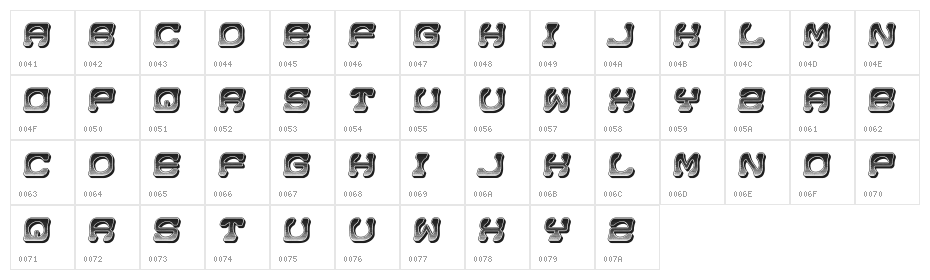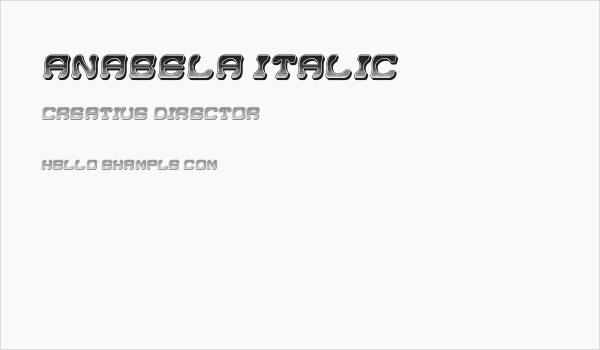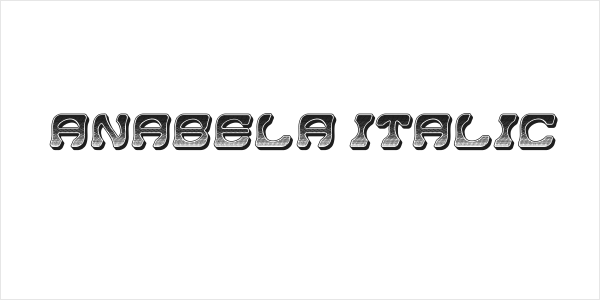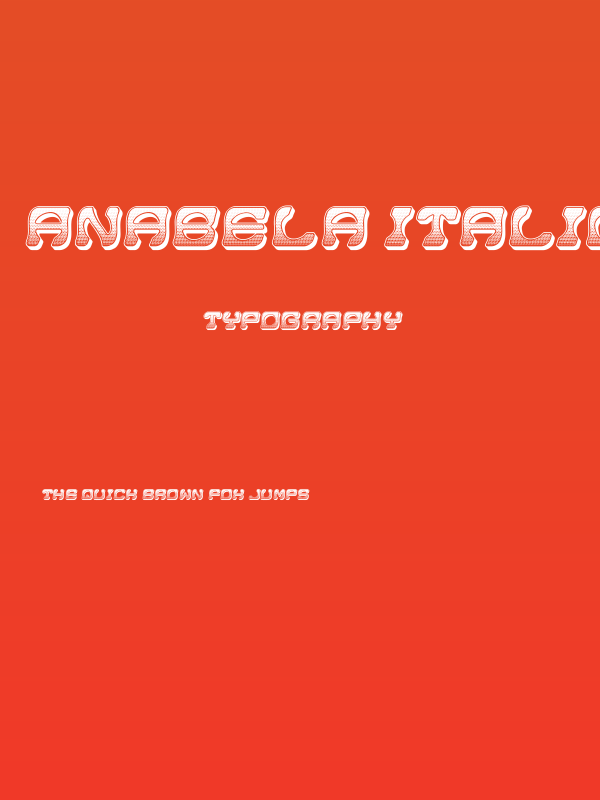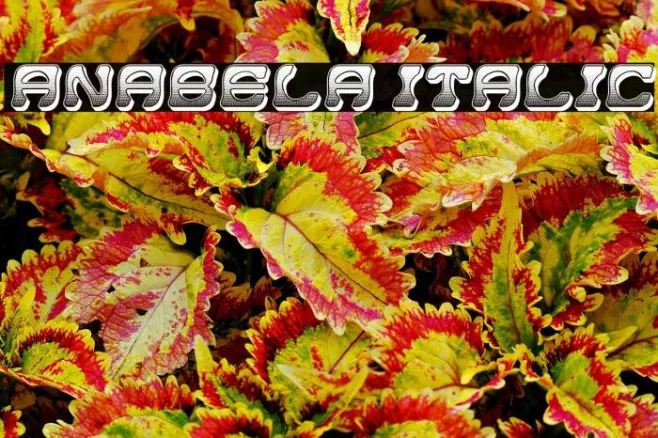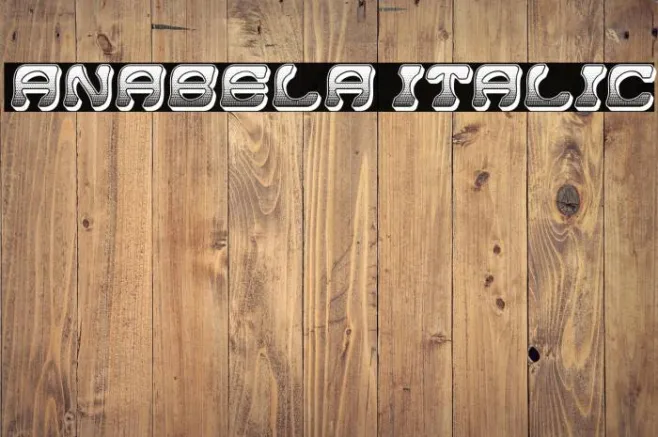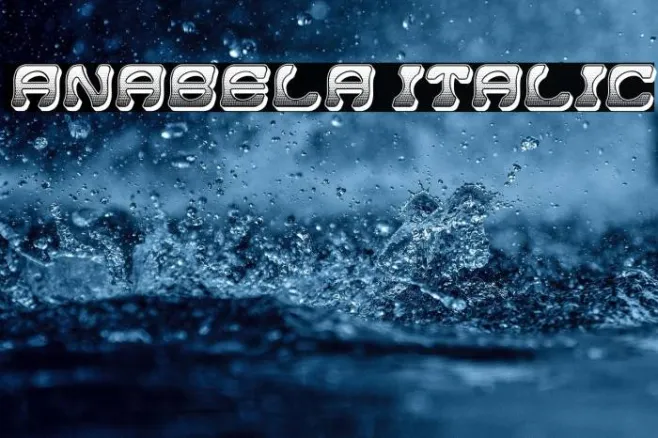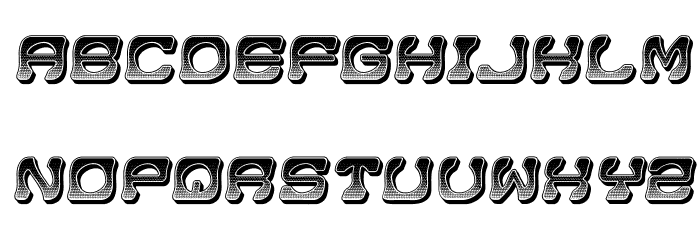
Anabela Italic Font
| Style général | Modern with a vintage twist |
| Projets proposés | Ideal for posters, logos, headlines, and branding materials that require a bold and creative touch. |